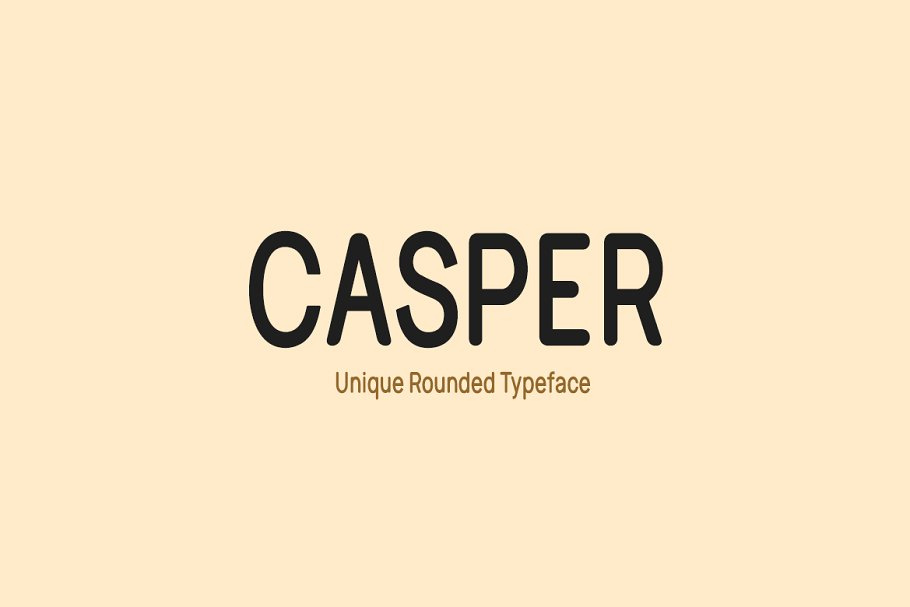
Casper Font
Casper Font is perfect for friendly children's branding, playful toy packaging, whimsical nursery decor, cheerful educational materials, gentle bedtime story books, and warm family-oriented campaigns. Its approachable character makes it ideal for pediatric healthcare services, children's entertainment venues, friendly ghost-themed products, cozy family restaurants, kids' clothing brands, and any project requiring comforting warmth with innocent charm and delightful playfulness.
This font is exciting because it masterfully balances playful friendliness with reassuring comfort, creating typography that feels both engaging and trustworthy for young audiences and their families. The soft, rounded letterforms evoke feelings of safety, warmth, and gentle fun, making it perfect for brands seeking to create positive emotional connections with children while maintaining the trust and confidence of parents and caregivers.
The Casper Font family typically includes Regular, Bold, and Light variations with playful alternates, friendly decorative elements, and gentle ornaments that enhance its comforting personality. This comprehensive collection provides designers with versatile tools for creating cohesive brand systems that maintain childlike wonder while offering flexibility for various family-focused applications and kid-friendly market positioning strategies.